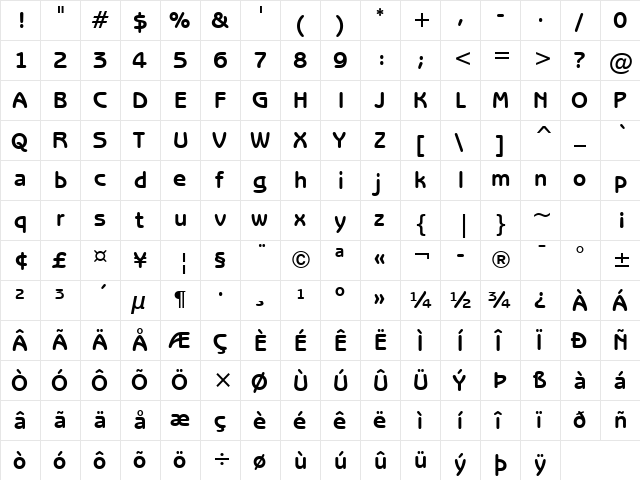
BenguiatGot Bk BT Bold Font Preview
BenguiatGot Bk BT Bold
Design Context for BenguiatGot Bk BT Typeface
BenguiatGot Bk BT takes a measured approach to typography — its balanced proportions and neutral character make it a reliable workhorse for both digital and print work. Its bold stroke weight gives it real presence on the page.